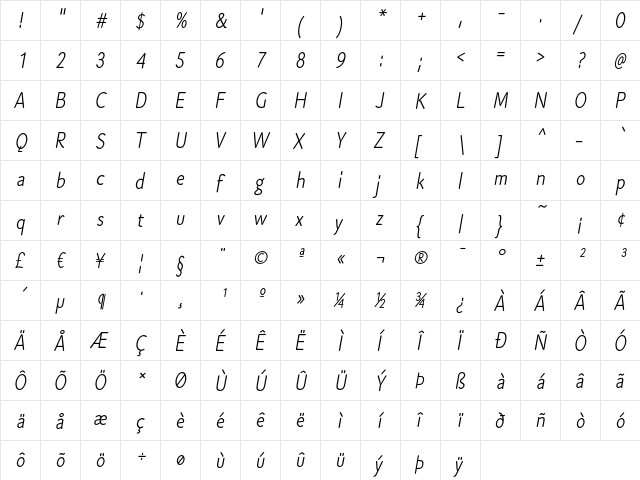
Cen Pro Normal Italic
Design Context for Cen Pro Typeface
Cen Pro offers clean, dependable letterforms without strong stylistic allegiance, making it a practical choice for designers who need flexibility. The slanted form adds forward momentum and visual energy.
Pro Tip: Use Cen Pro for emphasis, pull quotes, and subheadings where its slanted energy can add rhythm to the layout.